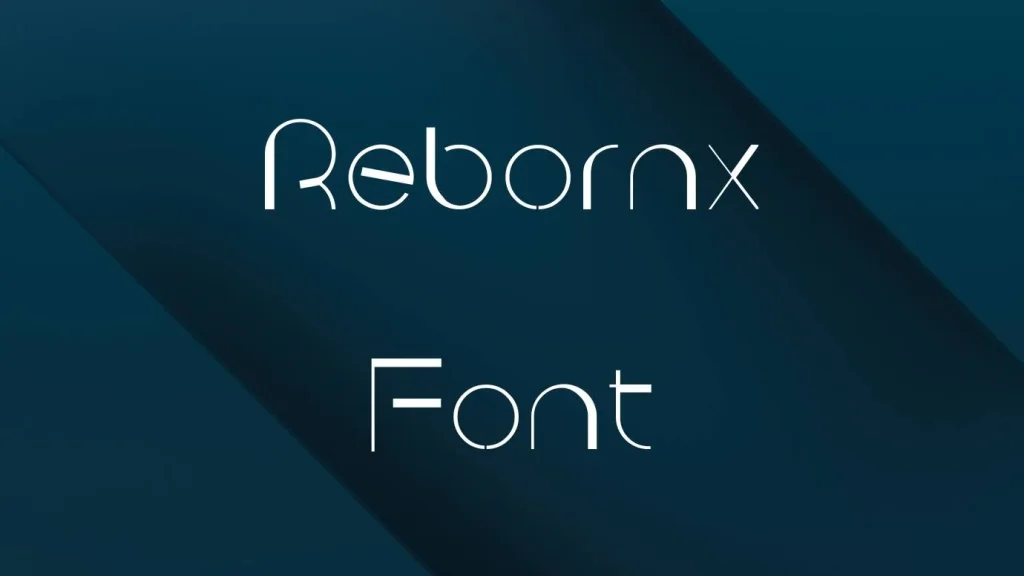
Rebornx Font is a techno font that was nicely created by Xin Ch. It consists of medium strokes with straight corners that create a unique texture. With this font, you can create fun designs that everyone will love. For a large text, this is a perfect choice just because of its styling.
To make your project stand out, use this style. Despite the typography having a traditional style, it is an amazing design. The font is available in OTF and TTF file formats. This wonderful font has unique letters and every letter is for 1000 ems.
This fantastic typeface is easy to use for both private and professional projects. There are attractive and distinctive characters in this elegant design. This is the ideal option for creating webpage headlines, trademarks, posters, advertising, branding, and numerous other vital items.
The text style can be pleasantly paired with a variety of other typefaces to generate visually interesting and attractive graphic designs.
This is a mind-blowing typeface for branding, quotes, wedding invites, watermarks on photographs, logos signatures, commercials, business cards, album covers, business cards, magazines, clothing, posters, etc.
Using the typeface, in your business, creating wedding invitations and cards, or labeling might be a good idea. You can use this for any grand projects that require some unique feel.
All types of design work can be done with this typeface. Whether you’re sending greetings or wedding invitations, this gorgeous typeface will enhance your message. This font could be best for pairing with future font. A magazine, poster, fashion design, or high-quality packaging can also be made with this design.
This typeface is perfect for branding projects as well as for logo design. There are countless uses for this type of lettering style, including quotes, logos, invitations, websites, and magazines. Branding can be done by using this style to improve the versatility of the task.
What is Rebornx Font?
Rebornx Font is a techno font that was nicely created by Xin Ch. It consists of medium strokes with straight corners that create a unique texture.